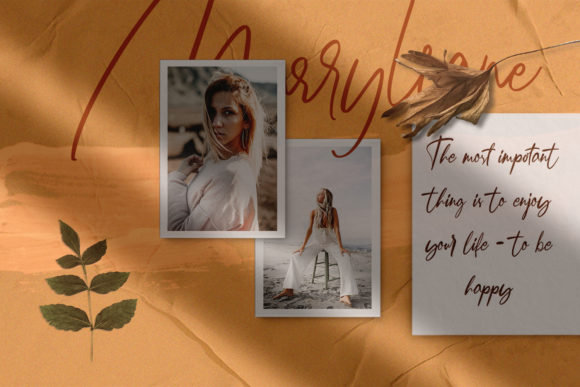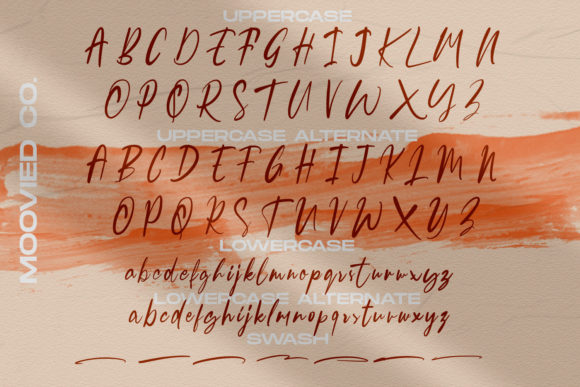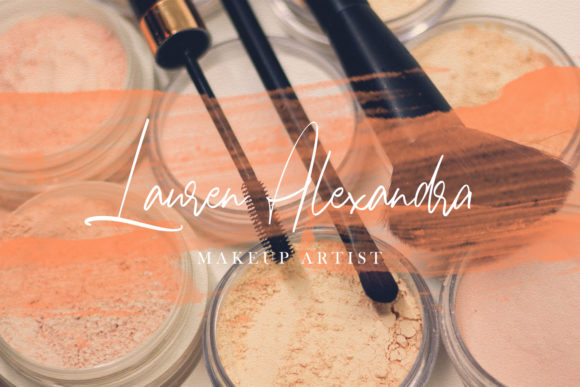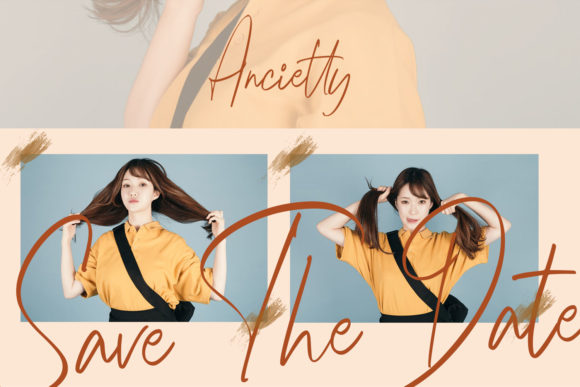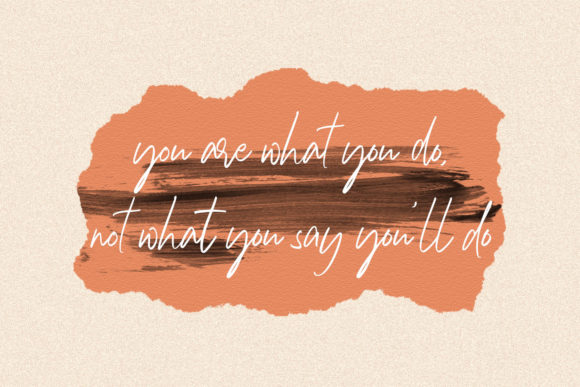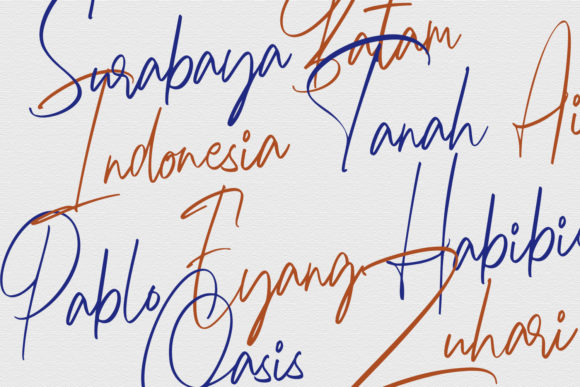
Introduction to Marryliane Font
There’s something special about discovering a new design resource that sparks creativity and inspires you to take on new projects. For many of us, that moment comes when we stumble upon the perfect font – one that perfectly captures the essence of our vision and elevates our craft. For me, that moment came when I discovered the Marryliane Font.
This beautiful, modern signature font is a game-changer for designers looking to add a touch of elegance and sophistication to their creative projects. With its flowing curves and high-quality design, Marryliane Font is the perfect addition to any design portfolio. And the best part? It’s available for free download with a transparent background, making it a valuable resource for designers of all levels.
Key Features of Marryliane Font
- High-quality design: Marryliane Font offers a sophisticated and elegant aesthetic, perfect for creative projects requiring a touch of sophistication.
- Multi-language support: This font supports multiple languages, making it a versatile design resource for projects requiring international support.
- Unique characteristics: Marryliane Font features a unique blend of modern and classic design elements, making it an excellent choice for designers seeking a distinctive look.
Honest Review: Marryliane Font
I recently came across the Marryliane Font and was excited to dive in and see what it had to offer. As a designer, I’m always on the lookout for high-quality fonts that can elevate my creative projects.
Here are a few things that work well with the Marryliane Font:
- ✨ High-quality design: The font has a sleek and modern aesthetic that looks great on both digital and print materials.
- ⚠️ Limited character set: The font only includes a limited range of characters, which may not be suitable for longer texts or more complex design projects.
- ⚠️ Not suitable for body text: Due to its decorative nature, the Marryliane Font may not be the best choice for large blocks of body text.
Overall, the Marryliane Font is a great design resource for designers working on creative projects. While it may not be suitable for every use case, it’s a great addition to any designer’s toolkit.
Marryliane Font
Marryliane Font is a high-quality, free download design resource that can be used for a variety of creative projects. This font features a transparent background, making it perfect for overlaying text on images or using as a standalone design element.
Tips for Getting the Most Out of Marryliane Font
To get the most out of Marryliane Font, use it in conjunction with other design elements, such as images or shapes. Experiment with different font sizes, colors, and styles to create unique and eye-catching designs.
Marryliane Font is commonly used for:
- Designing social media graphics
- Creating text overlays for videos
- Designing brochures and flyers
- Creating website headers and footers